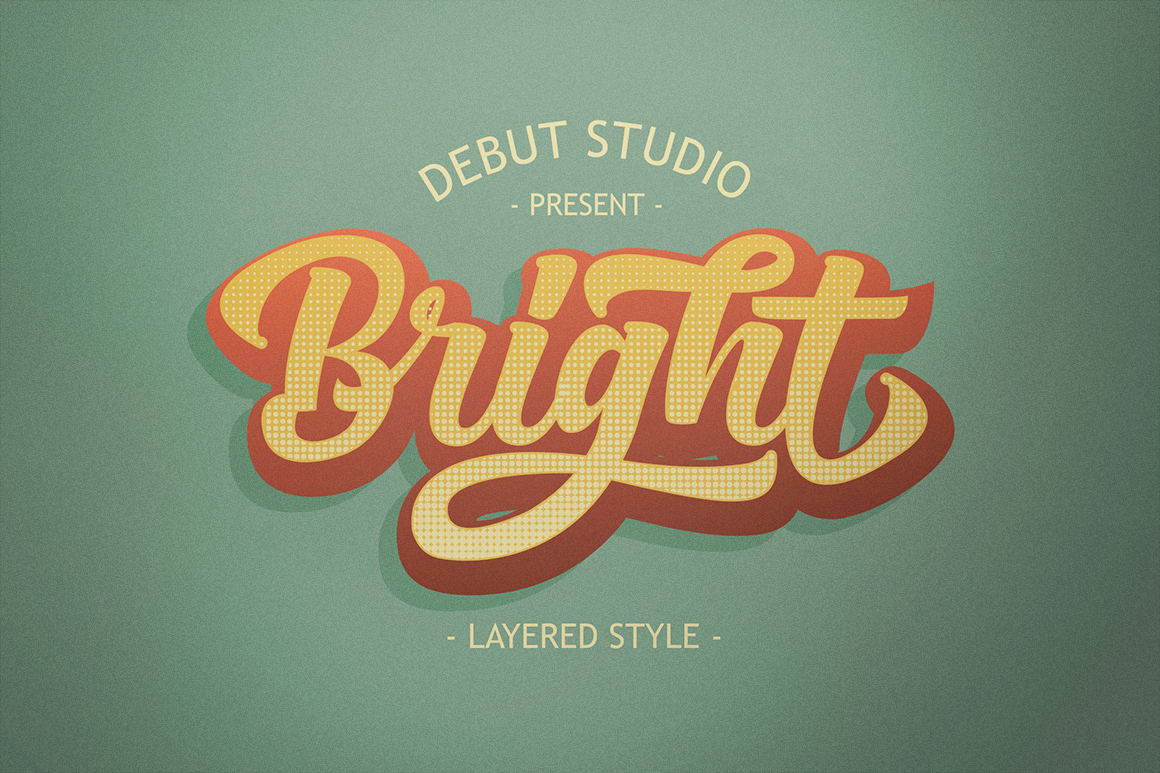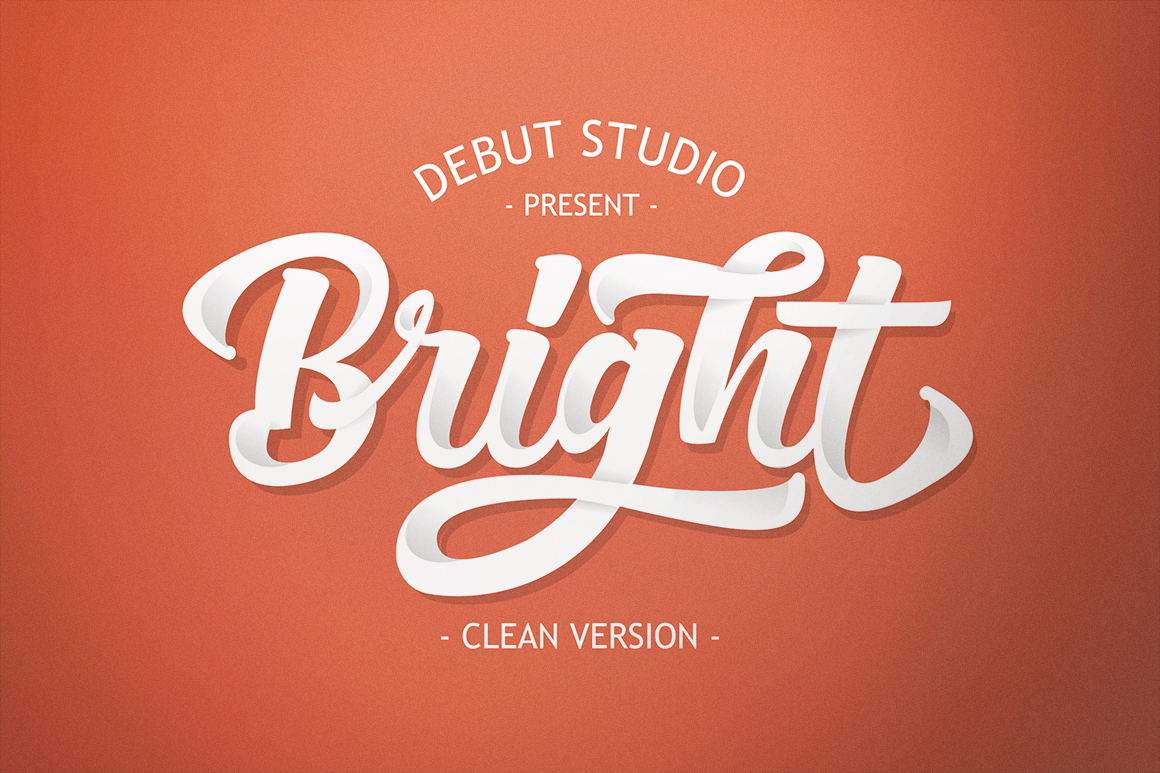
Bright Script Font
db-ku.com - Script & Handwritten -- The stunning Bright Script is layered font, allowing you to add some variation to your designs.